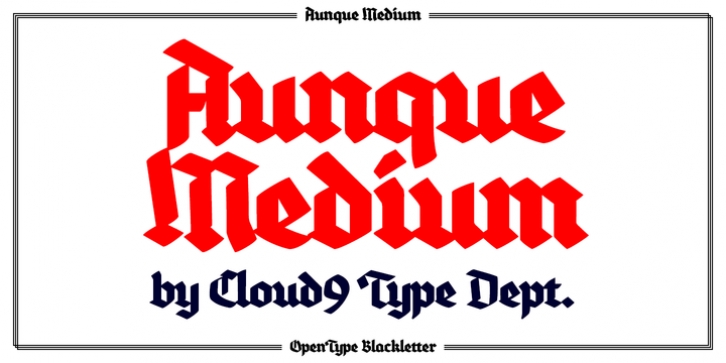
Jani Paavola
Cloud9 Type Dept
Aunque
Medium is a modern take on historical fraktur typefaces.
Aunque
is an OpenType font with OpenType features such as standard and discretionary ligatures.